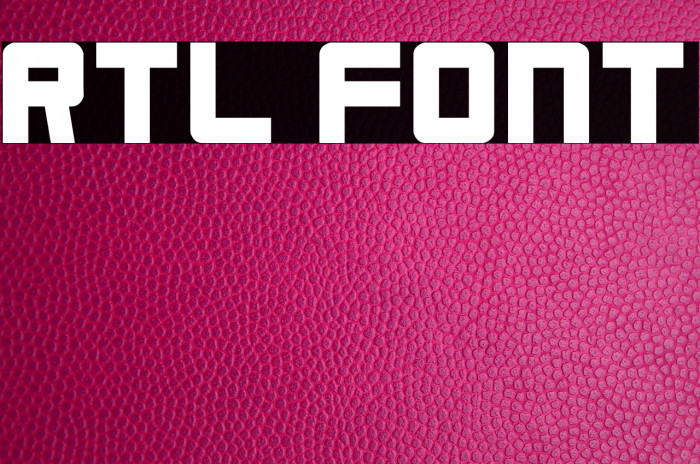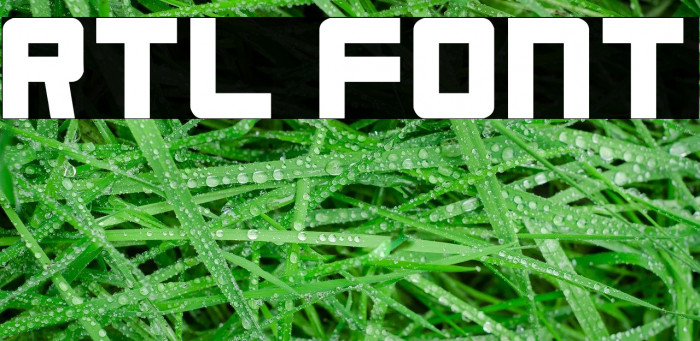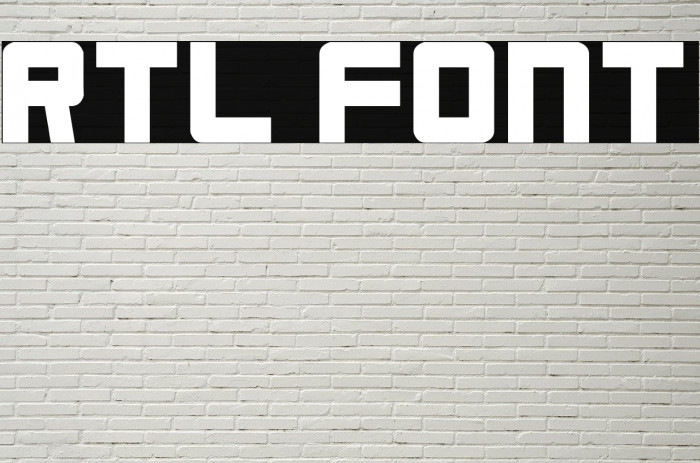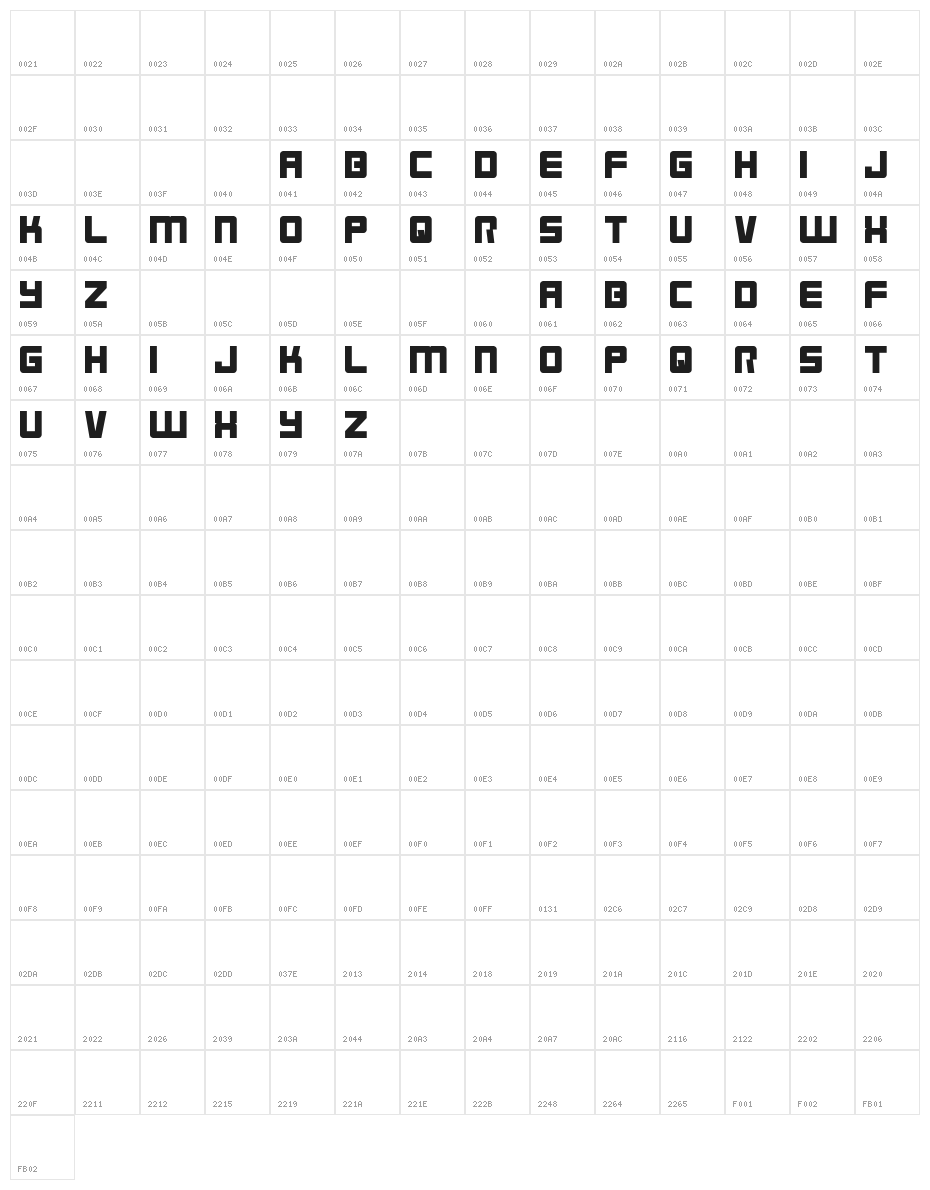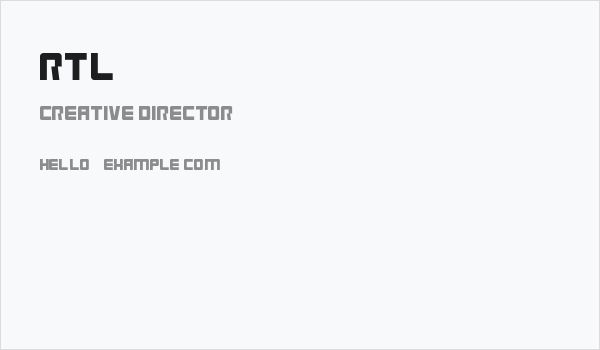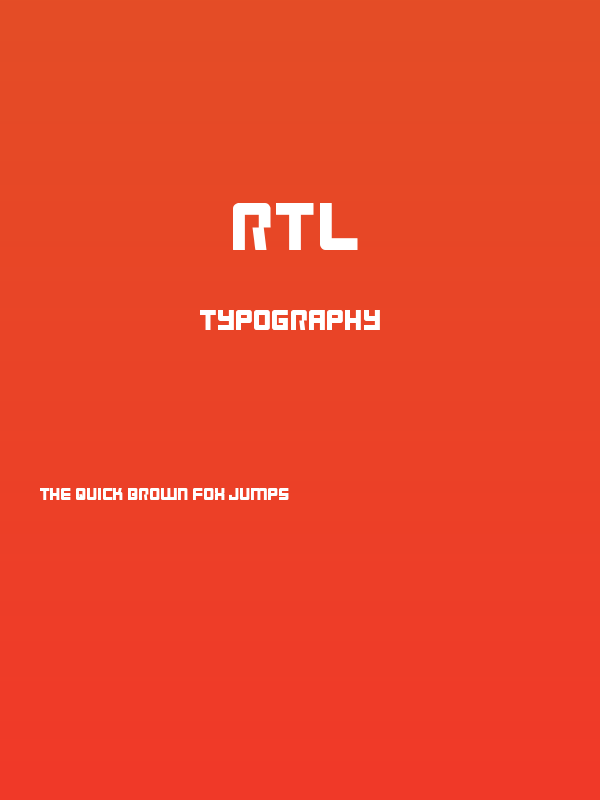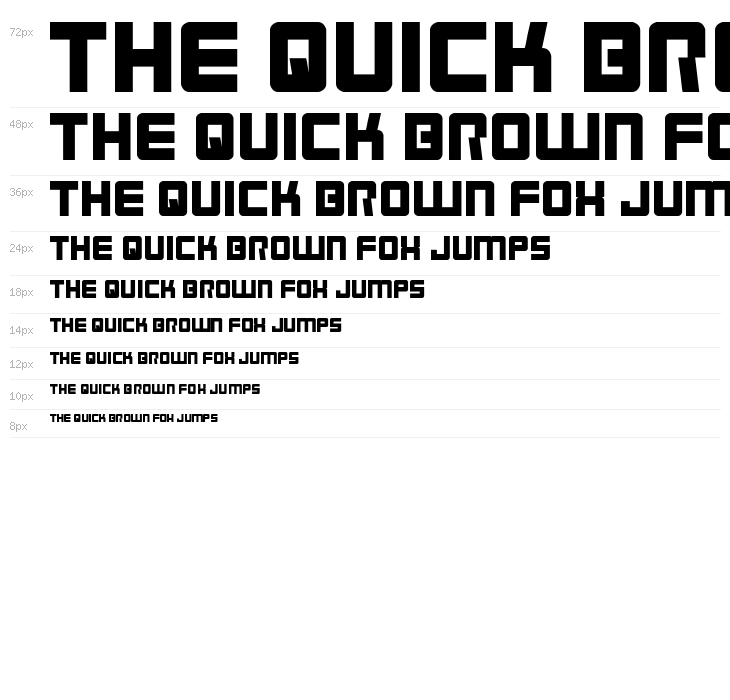
RTL Font
This font features a bold, geometric design with a strong, modern aesthetic. The characters are constructed with uniform stroke widths, giving them a sturdy and robust appearance. The uppercase letters are particularly striking, with sharp angles and a block-like structure that conveys a sense of strength and stability. The lowercase letters maintain this geometric style, ensuring consistency across the typeface. The font's design is clean and uncluttered, making it highly legible even at smaller sizes. Its boldness and clarity make it ideal for attention-grabbing headlines or impactful logos.
A bold, geometric font with a modern and robust design.
- Proposed Projects: Ideal for branding, headlines, posters, and logo design due to its bold and modern appearance.